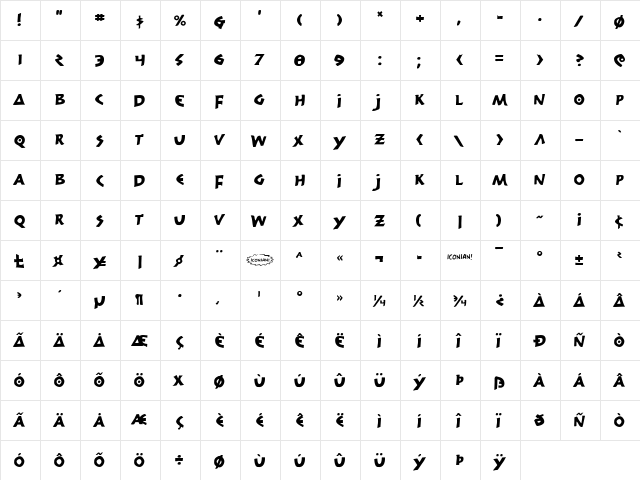
300 Trojans Regular
Design Context for 300 Trojans Typeface
300 Trojans is a composed and adaptable typeface that performs quietly and consistently across a wide range of design contexts.